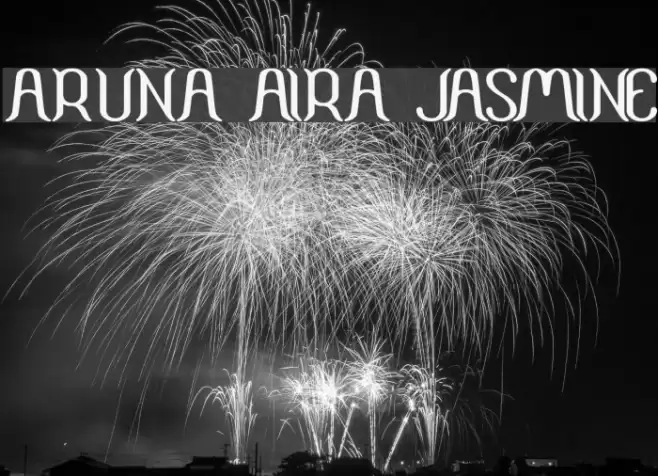
ARUNA AIRA JASMINE Font
ARUNA AIRA JASMINE Description
This font features a unique and artistic design with a modern twist. The characters are crafted with a blend of curves and sharp edges, creating a dynamic and eye-catching appearance. The uppercase letters have a distinctive style with elongated vertical lines and subtle curves, while the lowercase letters maintain a consistent flow with rounded forms. The numerals are designed to match the overall aesthetic, providing a cohesive look across all characters. Special characters are included, each with a creative flair that complements the font's overall design. This font is ideal for projects that require a bold and artistic touch.
A modern, artistic font with dynamic curves and sharp edges from Uncategorized fonts.
- Proposed Projects: Ideal for branding, posters, and creative design projects that require a bold and artistic touch.